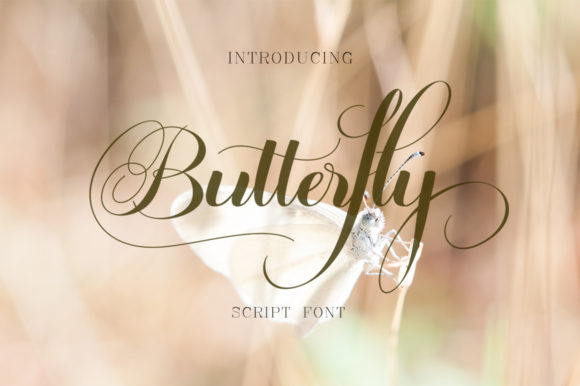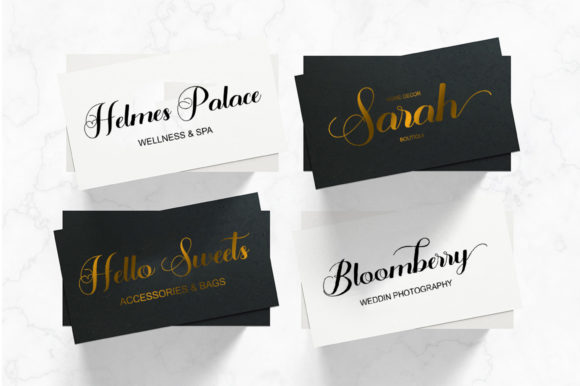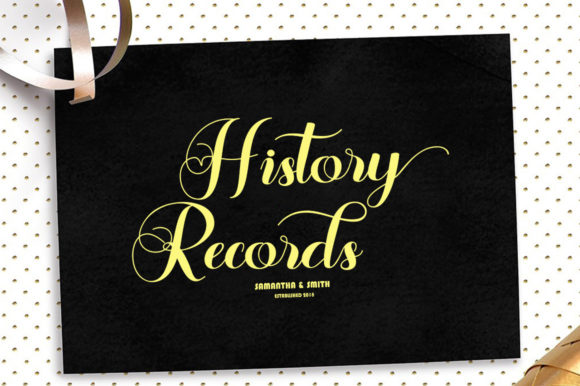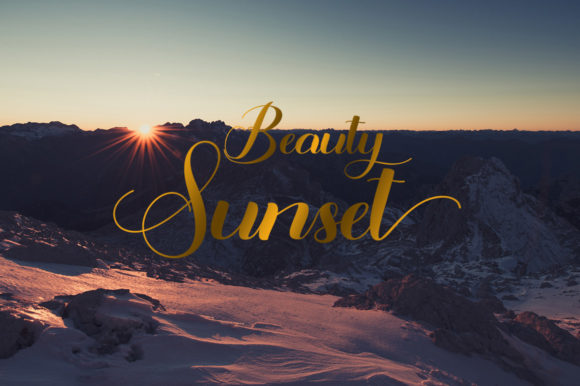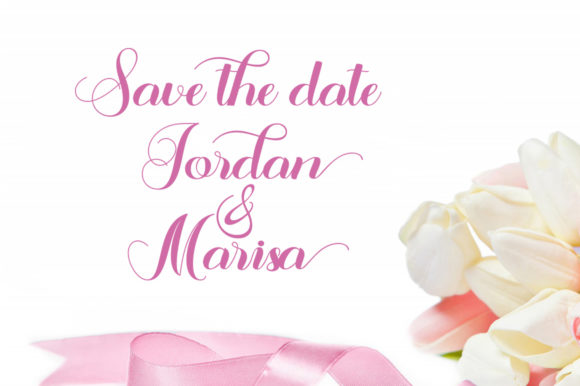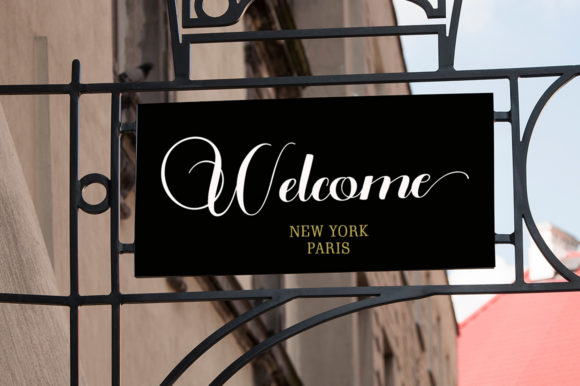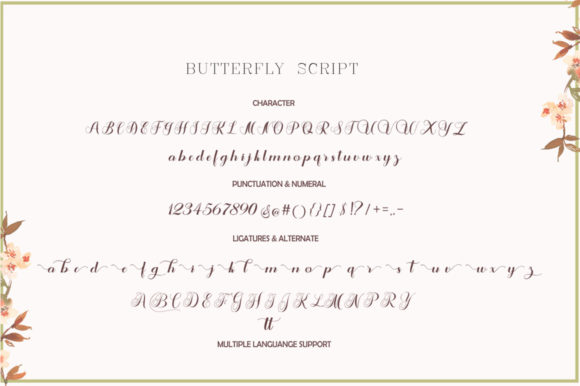
Butterfly  Font
About Butterfly  Font
The Butterfly is a modern calligraphy script. It has a trendy and feminine style and includes a fun irregular baseline. It’s perfect for wedding invitations, thank you cards, quotes, greeting cards, logos, business cards and more.